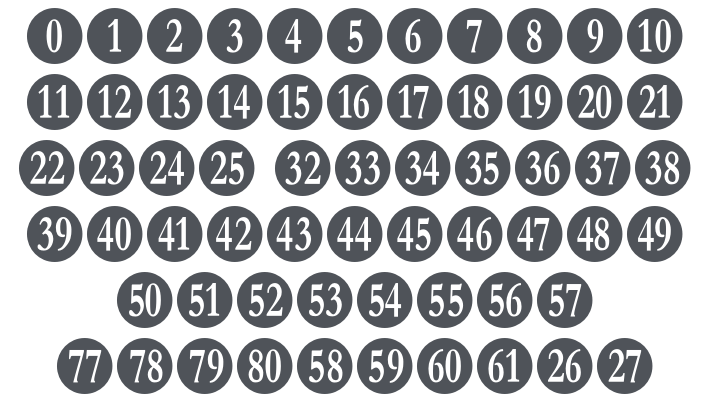
Numberpile Font Family
About Numberpile
Numberpile is a practical utility letterbat font rather than a decorative typeface — it's a complete set of bold circled numerals, white numbers on solid black circles, ranging well beyond the usual Unicode limits. Smart OpenType ligatures let you type (100) and automatically get a circled 100. Perfect for maps, diagrams, instructional layouts, music notation rehearsal marks, step-by-step guides, and any design needing clean, consistent numbered markers.